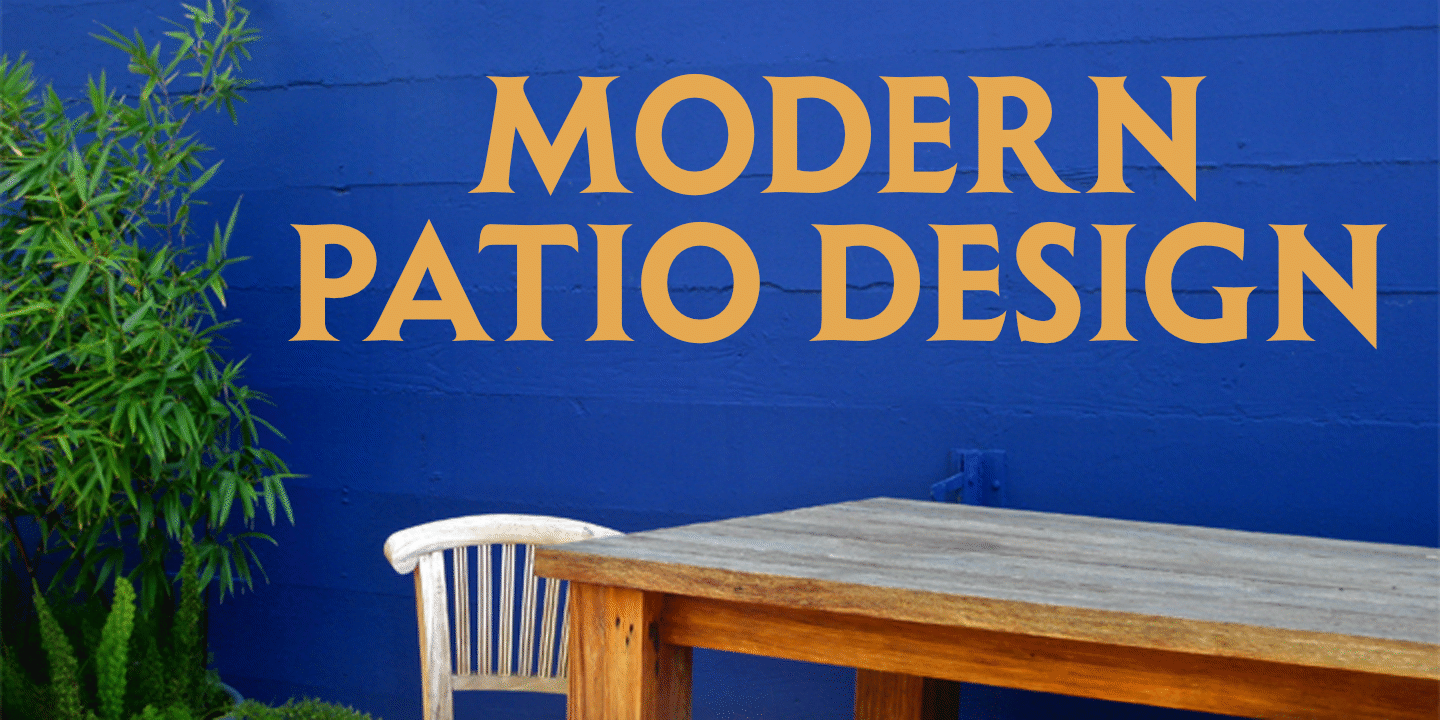
Shàngó Gothic Extra Bold
Shàngó Gothic is a new design that maintains the classic letterforms of the original Shàngó Classic, but its relatively even strokes gives it a more solid appearance, making it useful where a more modern, masculine look is needed. The entire Shàngó range supports most European languages, including modern Greek, and those that use the Cyrillic alphabet. Click on the Glyphs tab above for a detailed chart of all characters.
Shàngó Gothic is available in four weights: Regular, Medium, Bold, and Extra Bold. See also Shàngó Chiseled, Shàngó Classic, and Shàngó Sans.